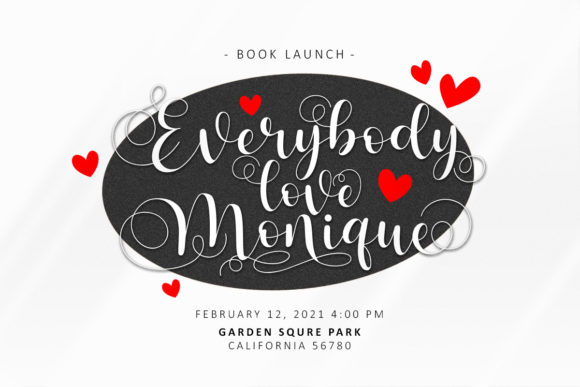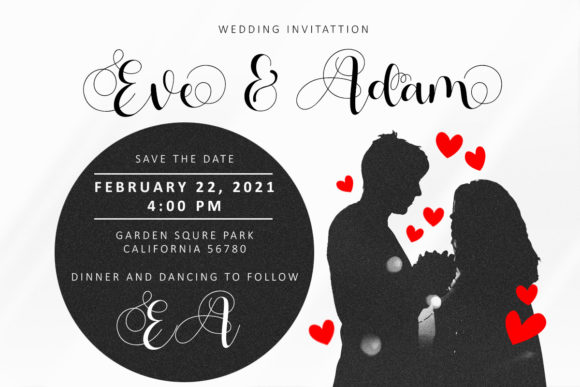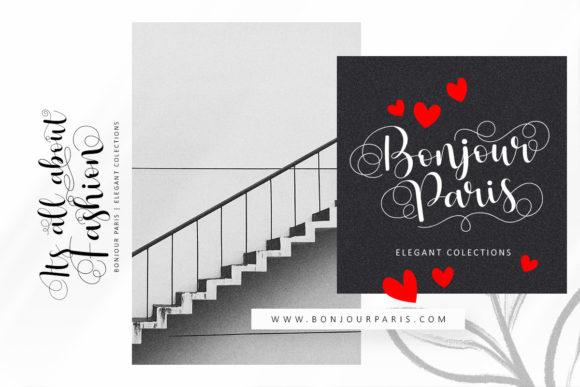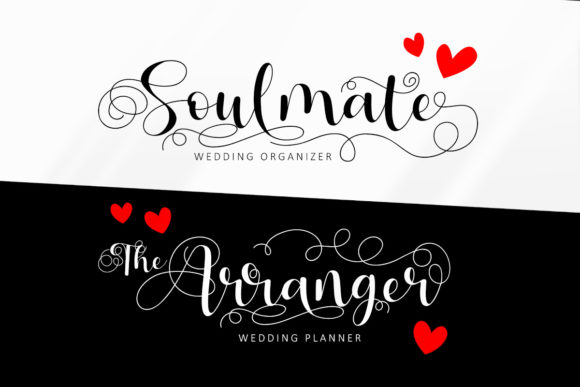
About Hello Tiffany Font
Hello Tiffany is a modern script font that is readable, friendly and stylish. It is defined by smooth curves and is perfect for fashion branding or editorial designs. This font is PUA encoded which means you can access all of the glyphs and swashes with ease!